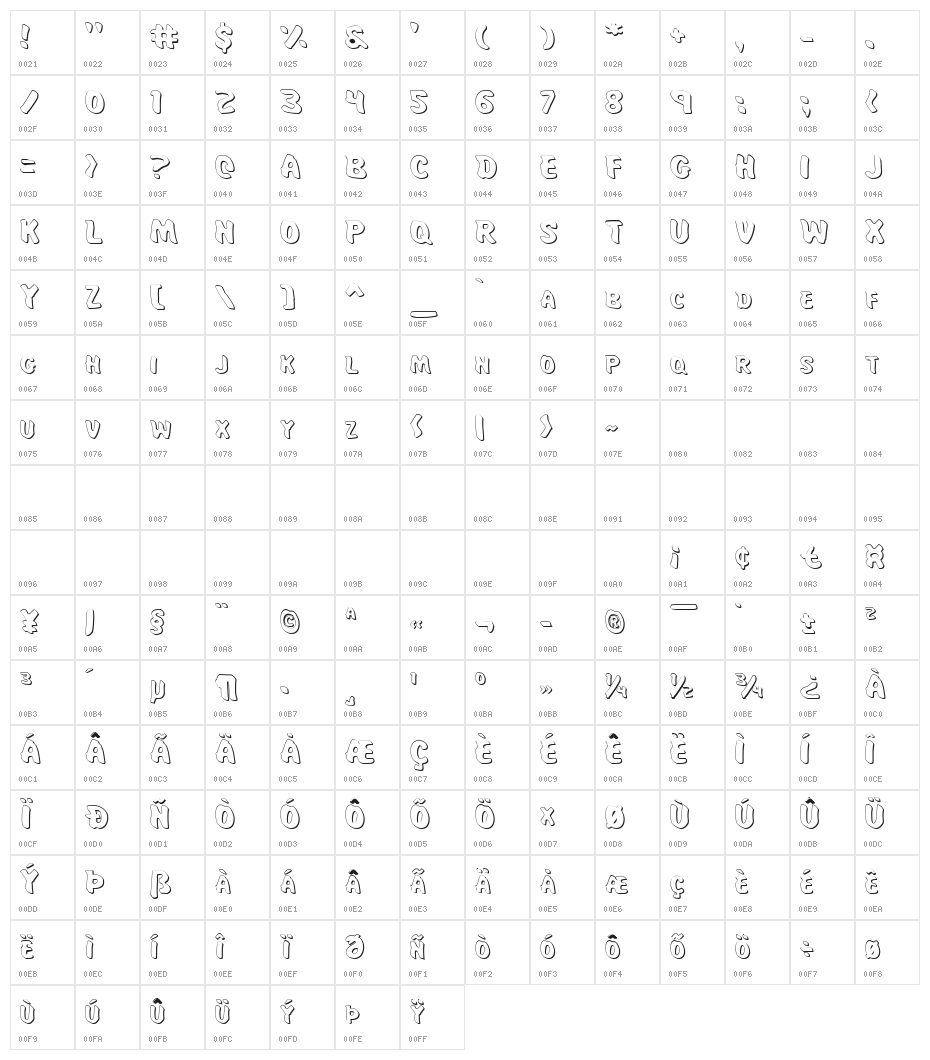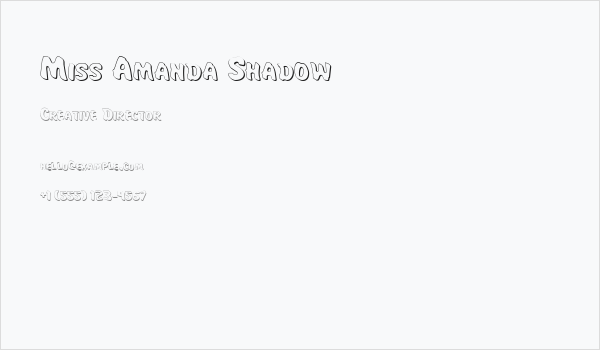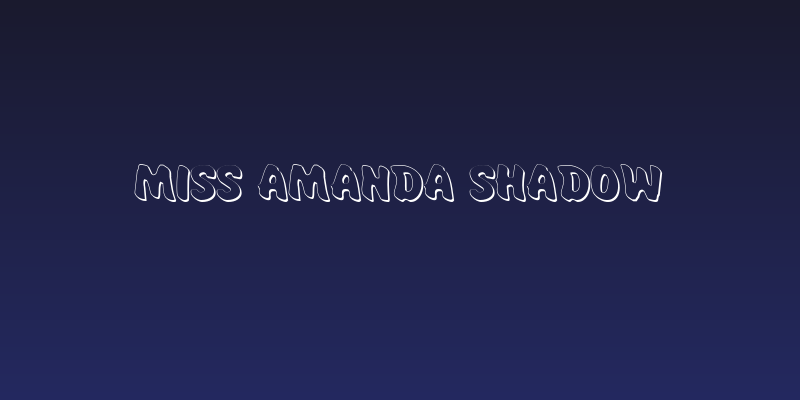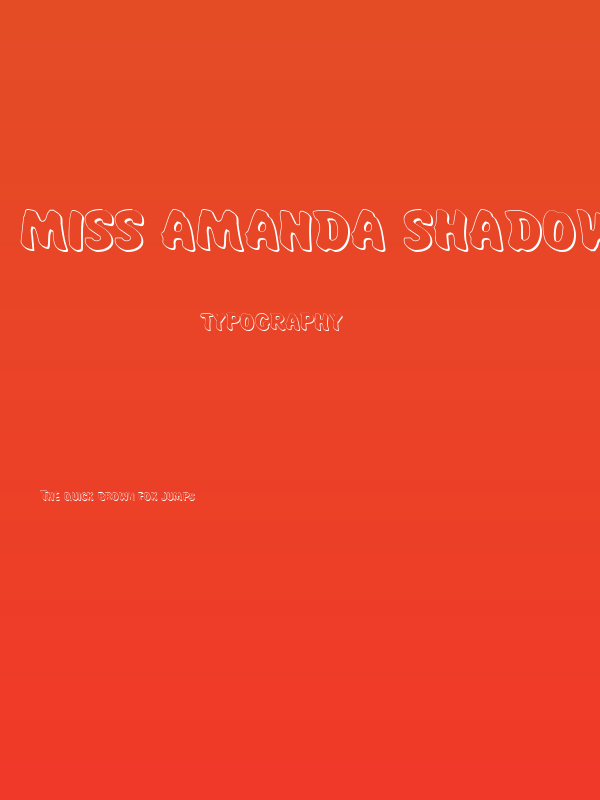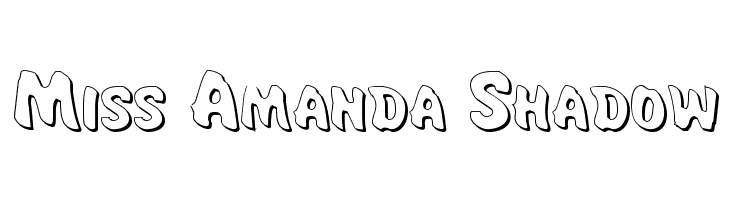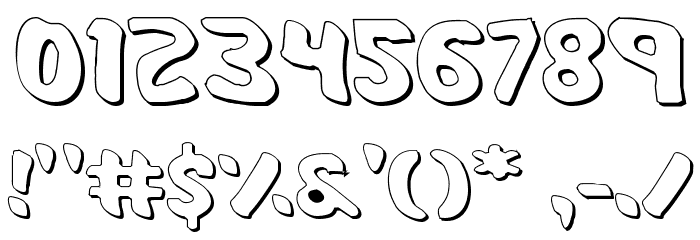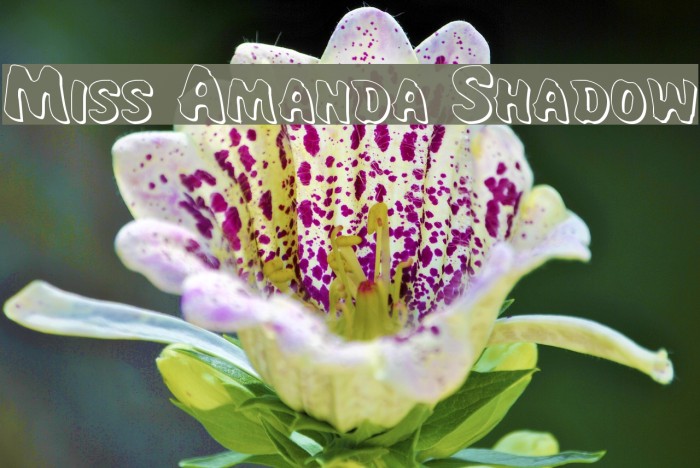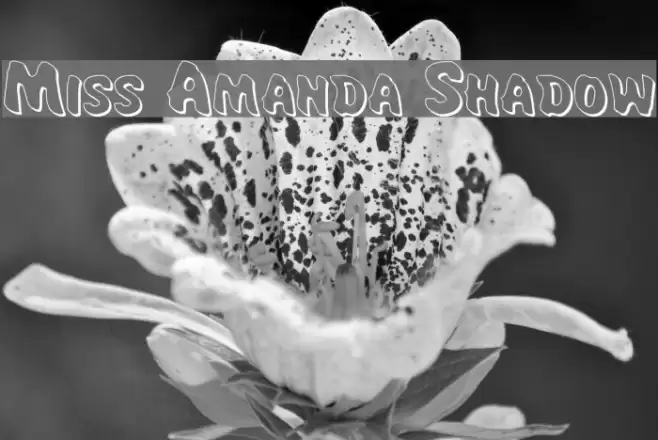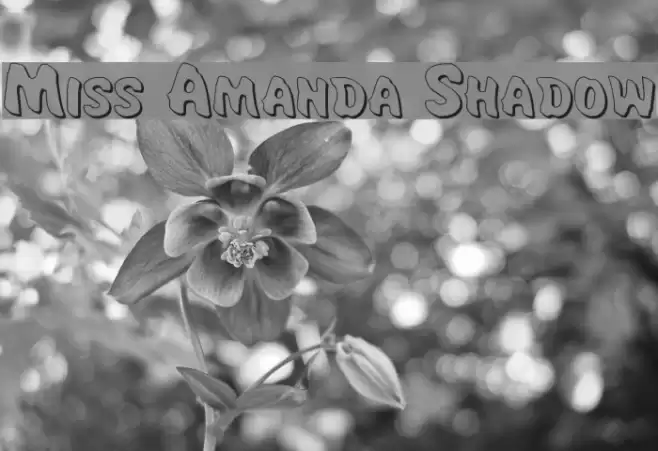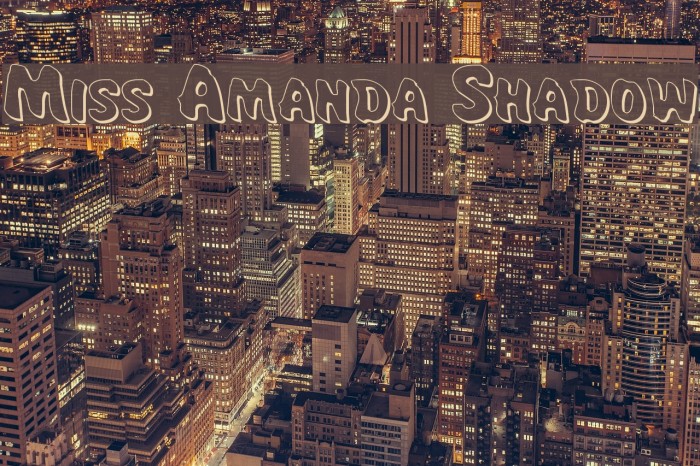
Miss Amanda Shadow Font
Miss Amanda Shadow Description
This font features a playful and bold design with a shadow effect that adds depth and dimension to each character. The letters are rounded and slightly irregular, giving them a hand-drawn, whimsical appearance. The shadow is consistently applied, creating a three-dimensional look that enhances the font's playful nature. The characters are well-spaced, ensuring readability while maintaining a fun and engaging style. This font is ideal for projects that require a lively and informal touch, such as children's books, party invitations, or playful branding materials.
| Overall Style | Playful, Whimsical, Fun |
| Proposed Projects | Children's books, party invitations, playful branding, posters, and greeting cards. |